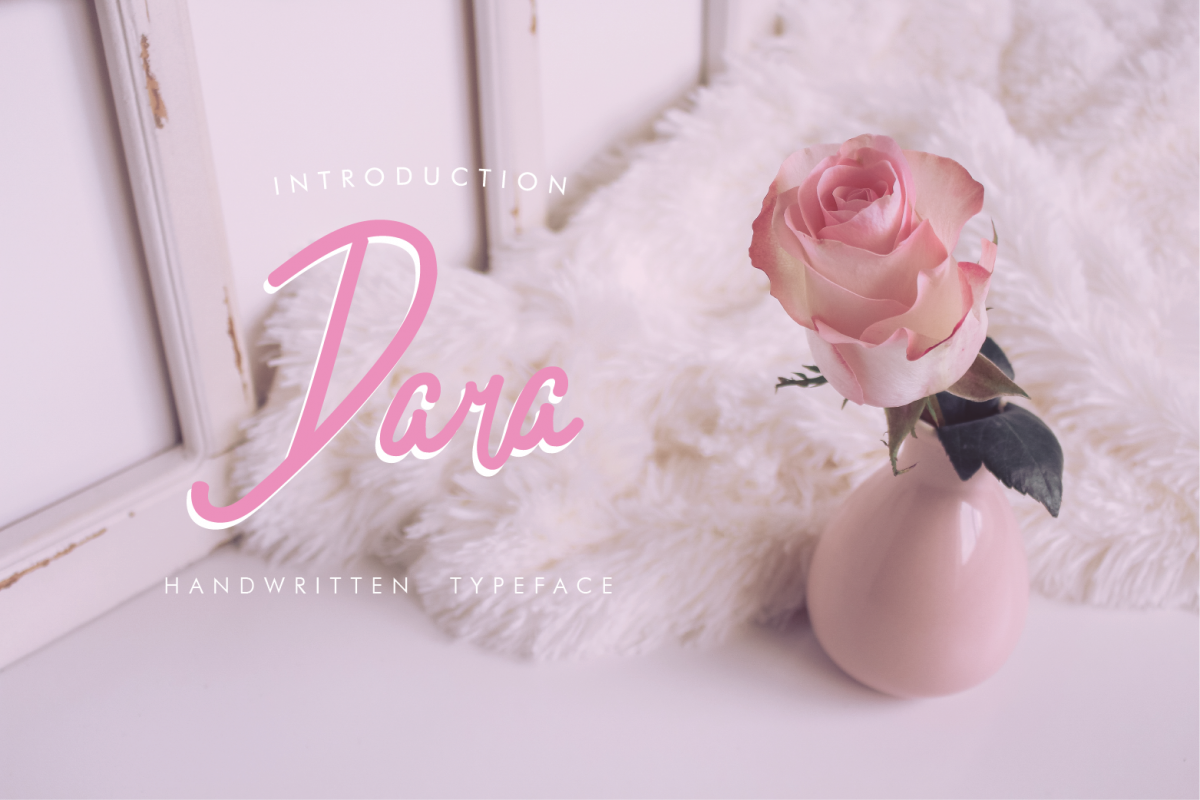
Dara Hand Written Type Face
Introducing Dara  | Handwritten typeface. It comes with elegant with script Font which is perfect to make any design.
This font is perfect for branding, magazines, quotes, wedding, invites, business cards, posters, and more.
Dara Handwritten typeface Features:
• Numerals & Punctuations
• Suitable for T-Shirt Logotypes, Signs, Headlines,  Posters, Letterhead and many more.